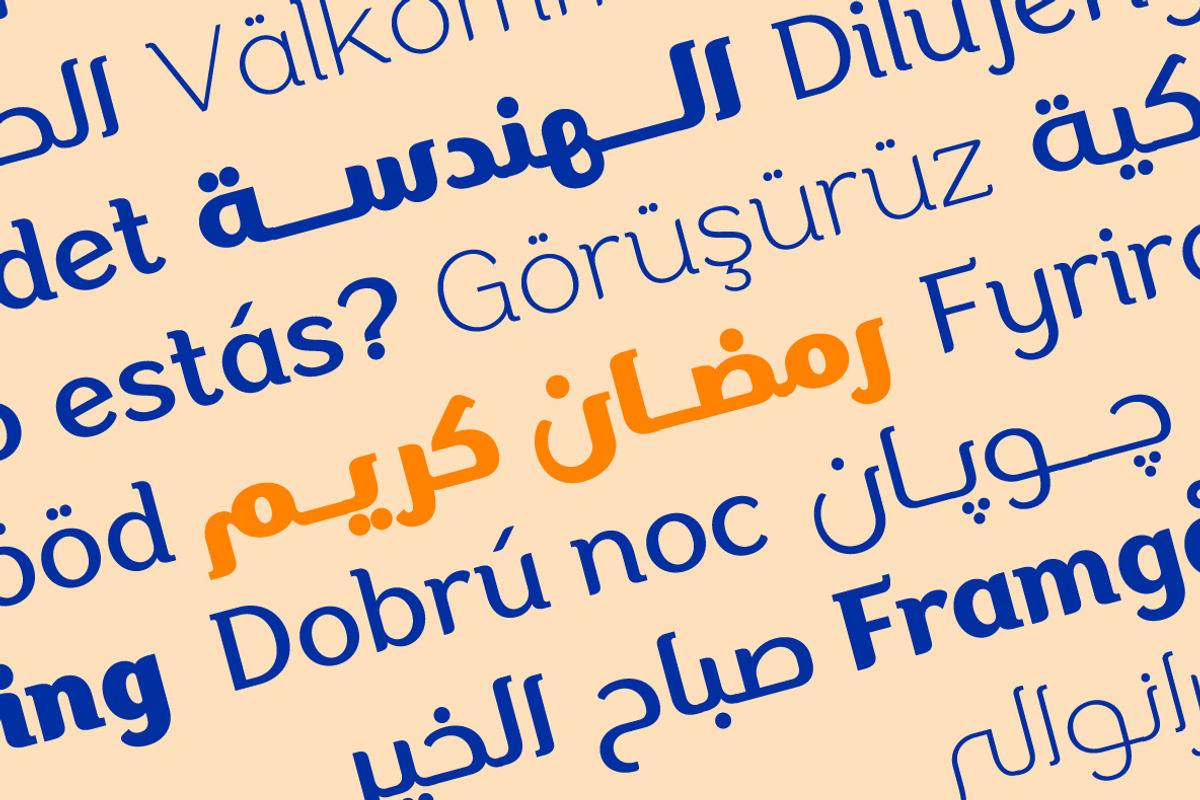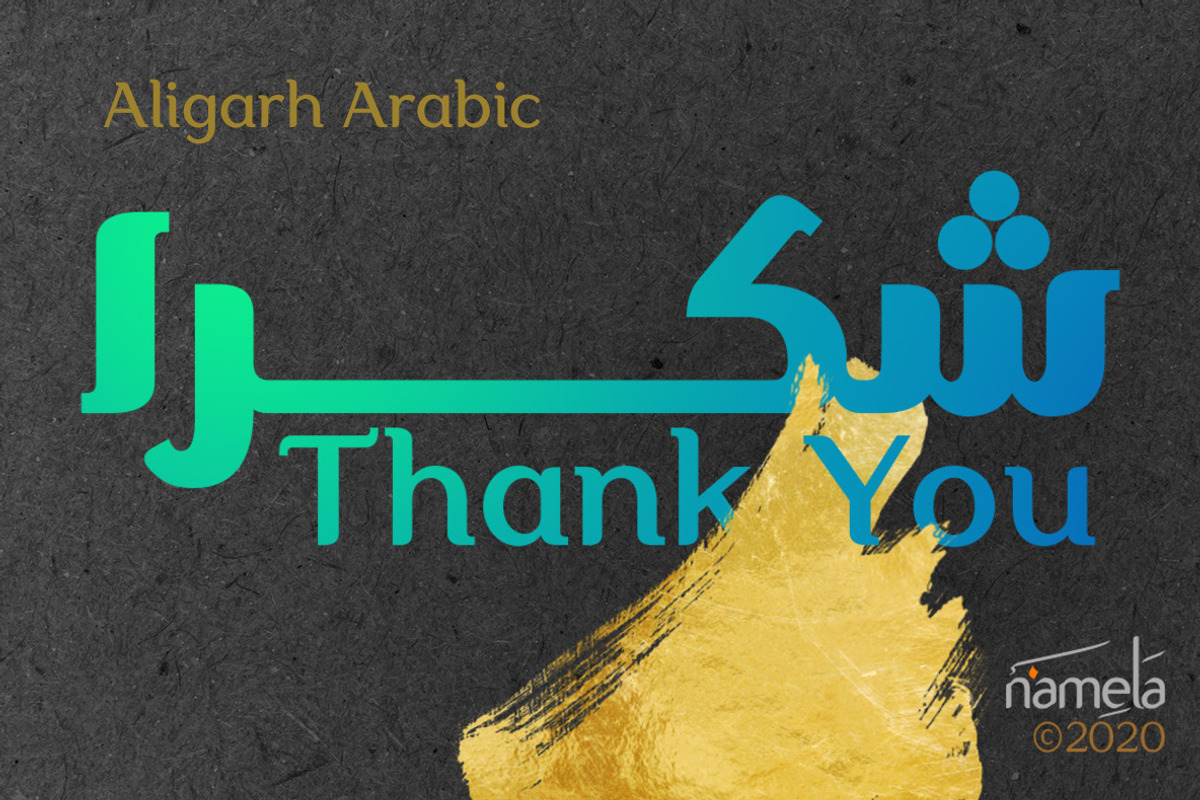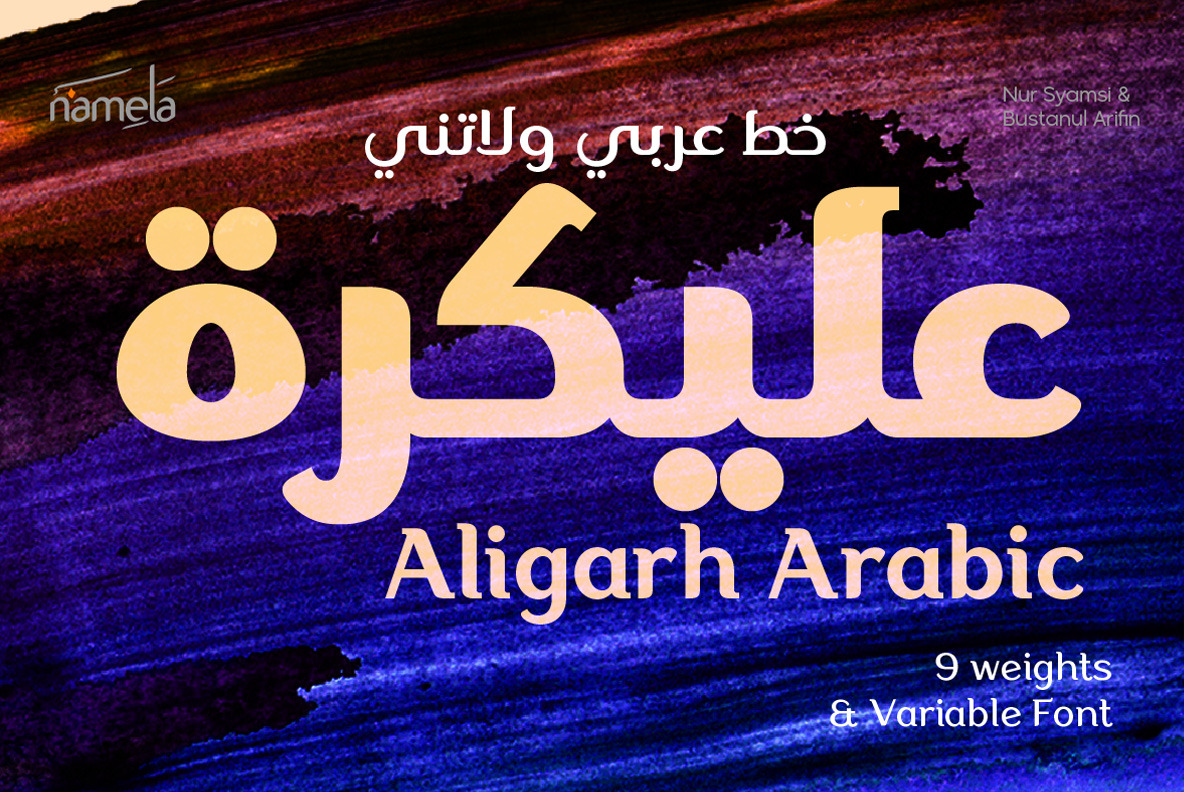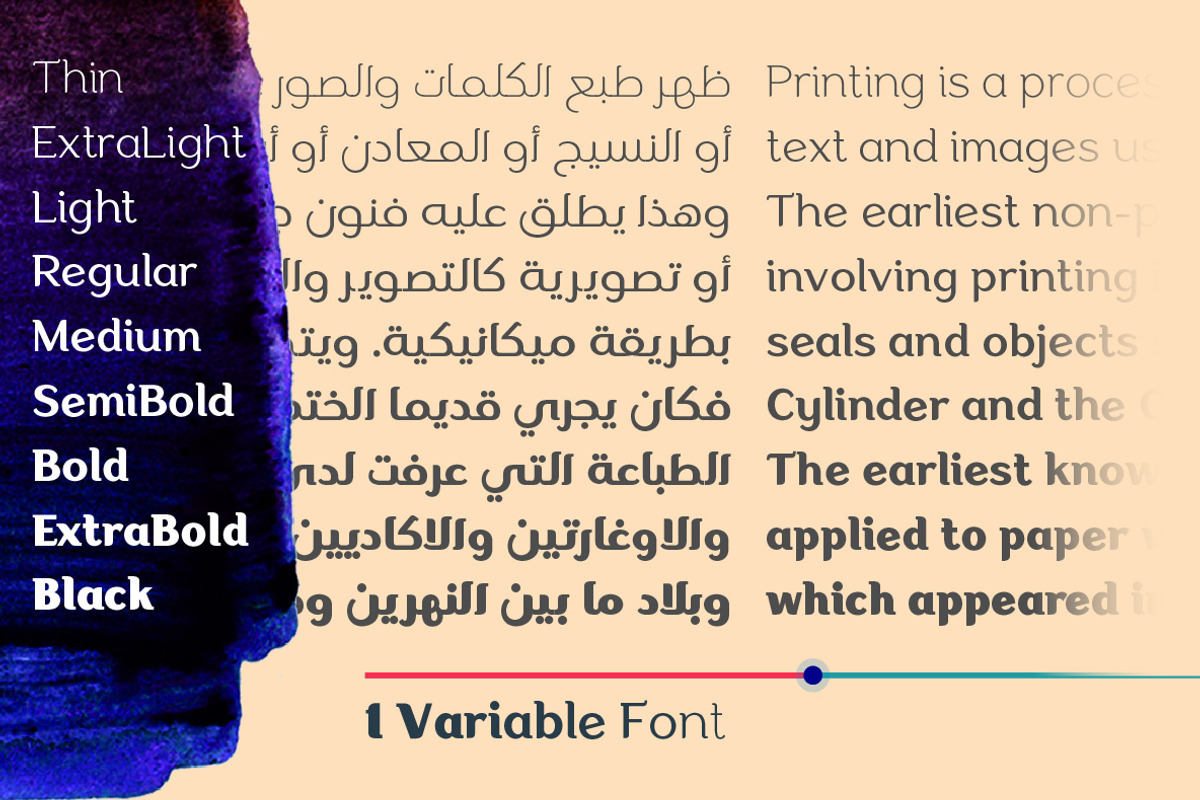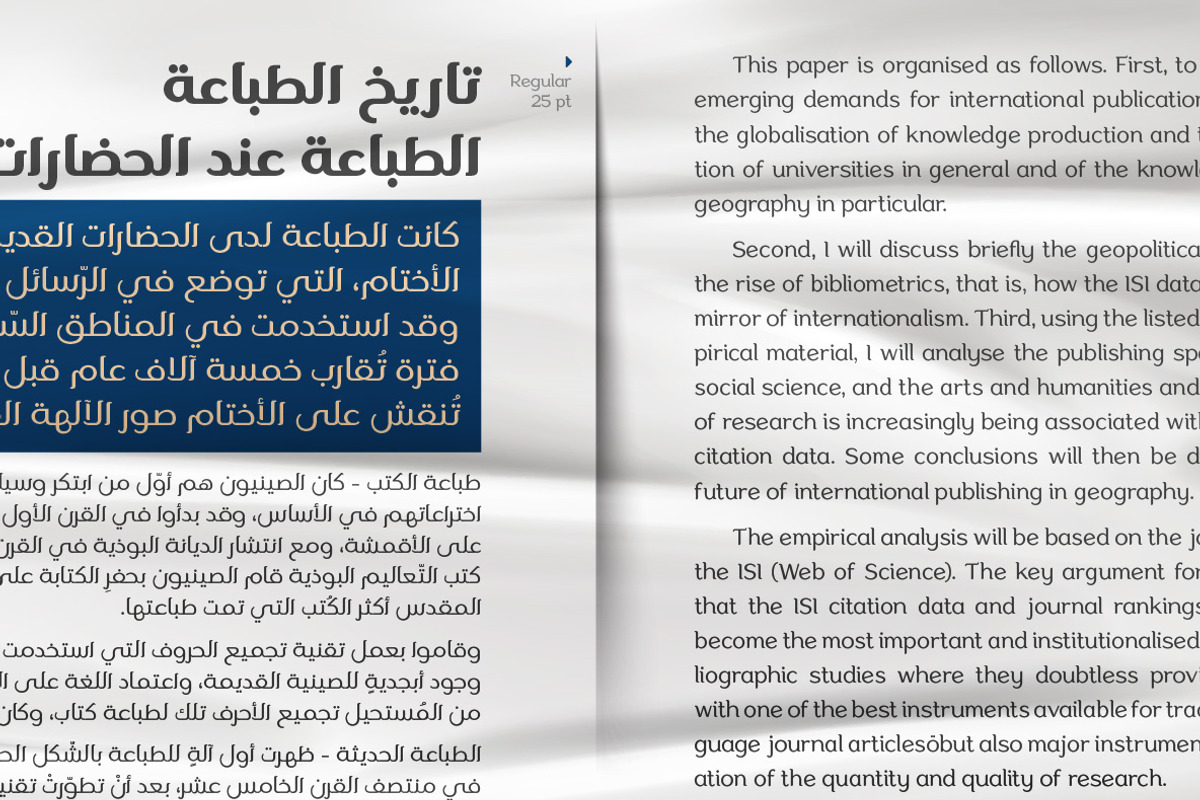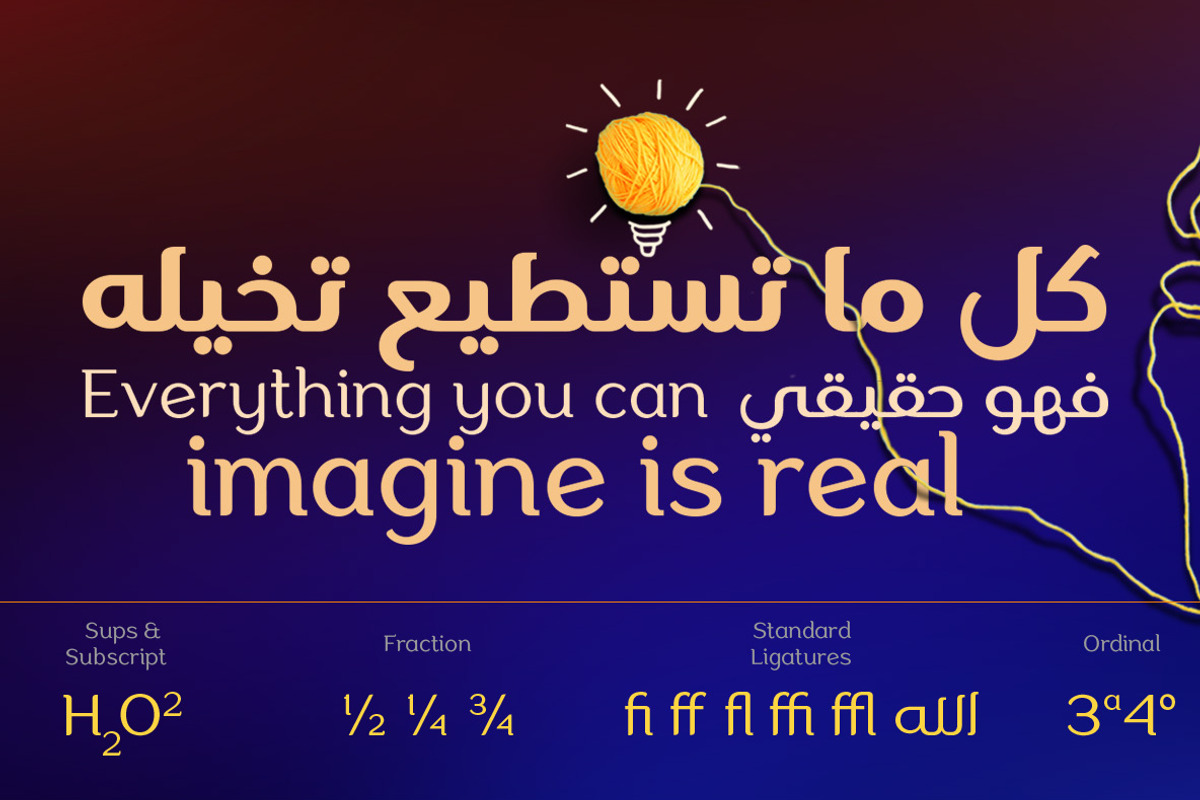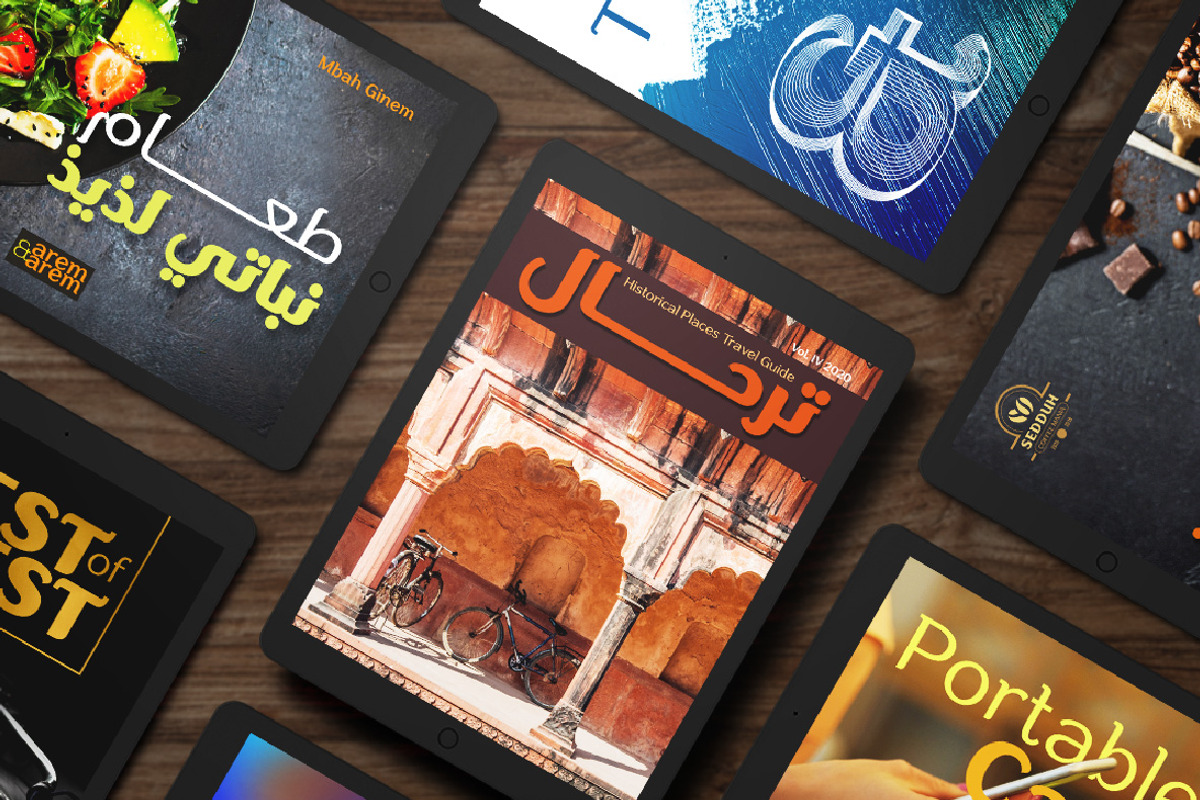
Aligarh Arabic - Arabic Font Family
Aligarh Arabic Font beautifully echoes the essence of its Latin counterpart, Aligarh Font. Rooted in the Arabic Kufi style. This font blends the distinctive features of semi-slab serifs with smooth rounded brackets, culminating in uniquely shaped edges. This synthesis represents an artistic exploration, harmonizing the distinctive styles of Latin and Arabic scripts within a single typeface.
Aligarh Arabic Font is a bridge between cultures, designed to complement its Latin counterpart seamlessly. It carries the same elegance, versatility, and visual impact, making it suitable for various applications across print and digital media. This font embodies the spirit of innovation. Bringing together the rich heritage of Arabic calligraphy and contemporary design. Create a harmonious typographic experience.